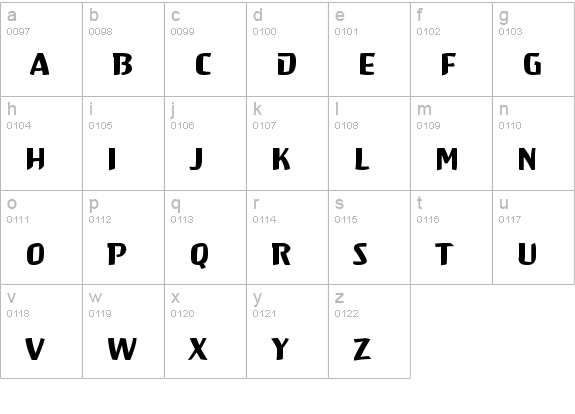
Hayate Font Details
Hayate font is a modern and elegant typeface that exudes sophistication and style. With its clean lines and sleek design, this font is perfect for a wide range of projects, from branding to editorial design. The Hayate font is free to download at FontsMarket.com, making it easily accessible for designers looking to add a touch of class to their work. Its versatility and timeless appeal make it a must-have in any designer's toolkit. Add a touch of elegance to your projects with the Hayate font today.